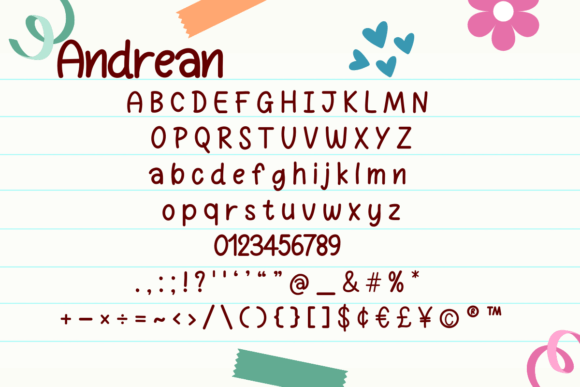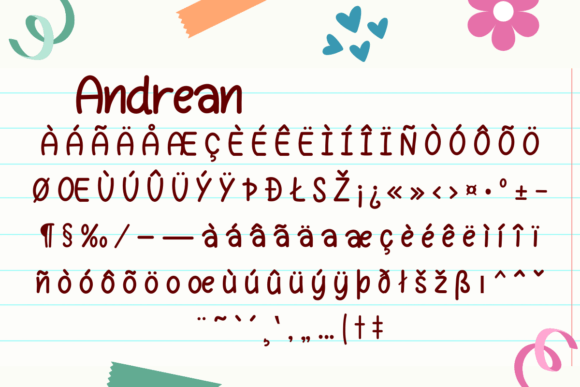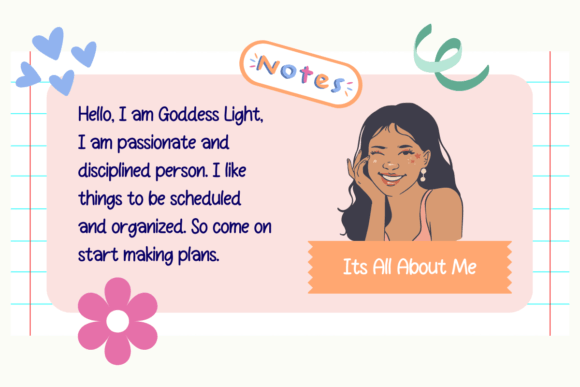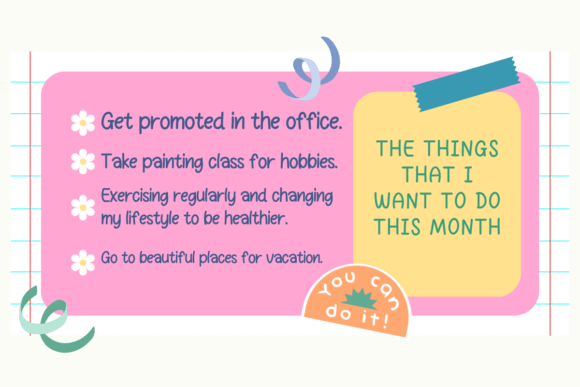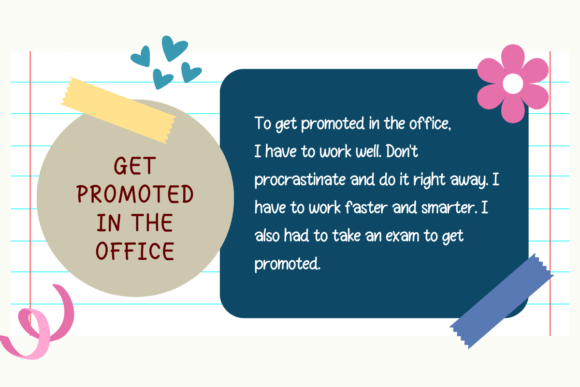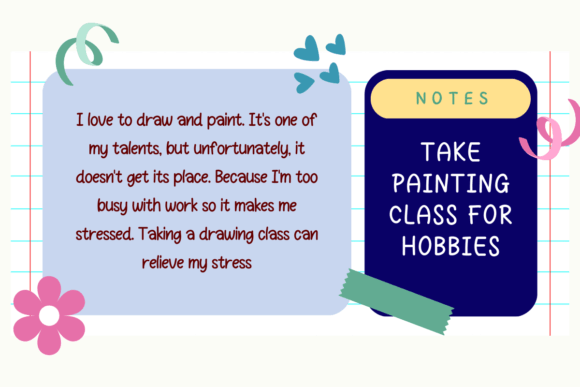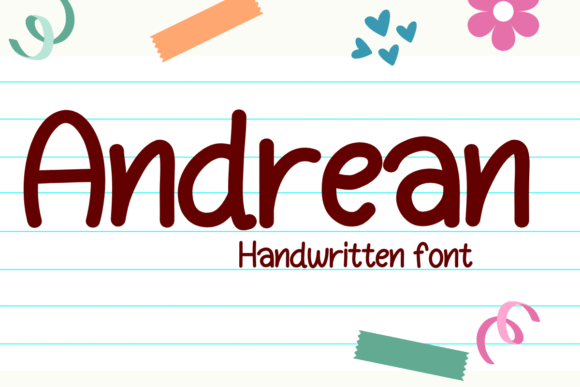
Introducing Andrean Font: The Perfect Handwritten Style for Your Creative Projects
Are you a designer, crafter, or DIY enthusiast looking for a unique and versatile font to add a personal touch to your projects? Look no further than Andrean Font, a beautiful handwritten font that is perfect for a wide range of creative applications.
What is Andrean Font?
Andrean Font is a carefully crafted handwritten font that exudes warmth, elegance, and personality. Its flowing lines and delicate strokes make it an ideal choice for projects that require a touch of sophistication and whimsy. Whether you’re looking to create a heartfelt letter, a beautiful journal entry, or a stunning visual design, Andrean Font is the perfect choice.
Uses for Andrean Font
Andrean Font is incredibly versatile and can be used for a wide range of projects, including:
- Handwritten notes and letters
- Diary and journal entries
- Banners and posters
- Mugs and ceramics
- T-shirts and apparel
- Stationery and paper crafts
Why Choose Andrean Font?
So why choose Andrean Font over other fonts? Here are just a few reasons why this font stands out:
- Unique and distinctive: Andrean Font has a one-of-a-kind style that will add a personal touch to your projects.
- Easy to read: Despite its handwritten nature, Andrean Font is surprisingly easy to read, making it perfect for longer texts.
- Versatile: As mentioned earlier, Andrean Font can be used for a wide range of projects, from personal to commercial.
- High-quality: Andrean Font is a high-quality font that is designed to look great on any device or medium.
Tips for Using Andrean Font
Here are a few tips for getting the most out of Andrean Font:
- Experiment with sizes: Andrean Font looks great in a variety of sizes, from small and delicate to large and bold.
- Mix and match: Combine Andrean Font with other fonts and design elements to create a unique and eye-catching look.
- Add embellishments: Consider adding embellishments, such as doodles or graphics, to give your projects an extra touch of personality.
Andrean Font is a beautiful and versatile handwritten font that is perfect for designers, crafters, and DIY enthusiasts. Its unique style, ease of use, and high-quality design make it an excellent choice for a wide range of creative projects. Whether you’re looking to create a heartfelt letter, a stunning visual design, or a unique craft project, Andrean Font is sure to become your go-to font.